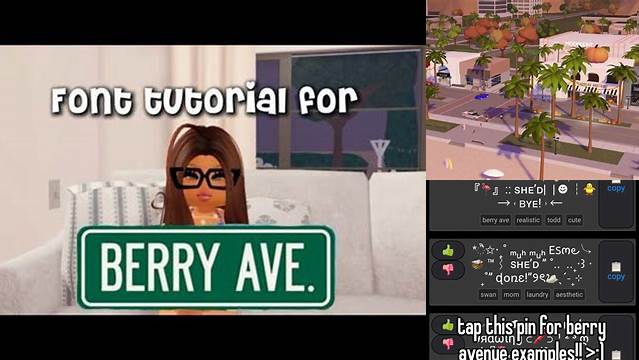
Cool Fonts On Roblox Berry Avenue: A Simple Guide
Hey guys! Ever wondered how to make your text stand out in Roblox Berry Avenue? One of the coolest ways to do that is by using different fonts. If you're looking to add a bit of flair and personality to your in-game messages, you've come to the right place. Let’s dive into how you can jazz up your text with some awesome fonts! This guide will walk you through everything you need to know to get cool fonts on Roblox Berry Avenue and make your messages pop!
1. Understanding Fonts in Roblox Berry Avenue
So, what’s the deal with fonts in Roblox Berry Avenue? Well, like many online platforms, Roblox has its own system for displaying text. The standard font is alright, but it doesn't exactly scream unique, does it? To really express yourself, you need to know how to tweak things a bit. The default font can sometimes feel a bit bland, especially when you're trying to convey a specific mood or personality. By understanding how fonts work within the game, you can start to explore the possibilities of making your messages more engaging and visually appealing. Whether you’re roleplaying, chatting with friends, or just hanging out, the right font can make a big difference. Plus, changing your font is a fun way to experiment with different styles and see what works best for you. Think of it as adding a personal touch to your digital presence in Berry Avenue. So, let’s get started on this font-tastic journey and discover how you can transform your in-game text!
2. Why Use Different Fonts?
Why bother with different fonts, you ask? Well, imagine telling a joke in a monotone voice – it just doesn’t hit the same, right? Fonts are kind of like the tone of your text. They add emotion, personality, and emphasis. A fancy font can make a message feel elegant, while a bold font can make it feel strong and assertive. If you're roleplaying, the right font can really help you get into character. For example, a spooky font might be perfect for a mysterious character, while a bubbly font could suit a cheerful one. Different fonts can also help you highlight important information in a chat or make your messages stand out from the crowd. Think about how different fonts are used in real life – in books, posters, and websites. Each font is chosen to create a specific effect. The same principle applies in Roblox Berry Avenue. Using different fonts is a simple yet effective way to enhance your communication and make your interactions more engaging. So, why stick with the default when you can express yourself in so many other ways?
3. Finding Font Options in Roblox
Okay, so where do you actually find these font options? That's a great question! Unfortunately, Roblox itself doesn’t have a built-in feature to directly change fonts within the game like you might see in a word processor. But don't worry, there are still ways around this! The key is to use external tools and websites that can help you generate text in different fonts. These tools essentially create stylized text that you can then copy and paste into Roblox. Think of it like using a translator for fonts – you type in your message, and the tool spits it out in a different style. This might sound a little complicated, but it's actually quite simple once you get the hang of it. There are many websites and apps designed for this purpose, and most of them are very user-friendly. The trick is knowing where to look and how to use these tools effectively. We'll walk you through some of the best options and show you how to use them to get the cool fonts you want. So, get ready to explore the world of font generators and unlock a whole new level of text customization in Roblox!
4. Using Online Font Generators
Online font generators are your best friends when it comes to getting fancy fonts in Roblox Berry Avenue. These websites are super easy to use. You just type in your text, and they’ll generate it in a bunch of different styles. Websites like LingoJam, CoolSymbol, and many others offer a wide variety of fonts to choose from. The process is usually as simple as typing your message into a box, browsing through the generated fonts, and then copying the one you like. Many of these sites also offer additional customization options, such as adding symbols or changing the text size. This means you can really tailor your text to fit your specific needs and preferences. When you’re browsing through the fonts, pay attention to how each one looks in the preview. Some fonts might look great in a small sample, but they might be hard to read in a longer message. It’s also a good idea to test out different fonts to see which ones work best with Roblox’s text display. Once you’ve found a font you love, just copy it and you’re ready to paste it into your Roblox chat or profile. With these tools at your fingertips, you'll be a font master in no time!
5. Copying and Pasting Fonts into Roblox
Once you've found your perfect font using an online generator, the next step is to copy and paste it into Roblox. This part is pretty straightforward, but let's go over the steps just to make sure you've got it. First, after generating your text in the font you like, there will usually be a button or an option to copy the text. Click that, and the stylized text will be copied to your clipboard. Next, head over to Roblox Berry Avenue and open up the chat box or wherever you want to use your new font. Simply paste the text using Ctrl+V (or Cmd+V on a Mac) or right-click and select “Paste.” And that’s it! Your message should now appear in the fancy font you chose. However, sometimes the fonts might not display perfectly in Roblox. This can happen because Roblox has its own way of rendering text, and some fonts might not be fully compatible. If you notice any issues, like missing characters or strange formatting, try a different font or adjust the size of your text. It might take a little experimenting to find fonts that work flawlessly, but the effort is worth it when you see your messages looking super stylish. So, go ahead and give it a try, and watch your text transform!
6. Troubleshooting Font Display Issues
Okay, so you've copied and pasted your cool new font into Roblox, but something's not quite right. Don't worry, this happens sometimes! There are a few common issues you might run into, and luckily, most of them are easy to fix. One common problem is that some characters might not display correctly. This usually happens because Roblox doesn't support every single character in every font. If you see weird symbols or empty boxes instead of letters, it means that the font you're using has characters that Roblox can't render. The solution here is simple: try a different font. Another issue you might encounter is that the font size looks different in Roblox than it did in the font generator. This is because Roblox has its own text scaling system. To fix this, you might need to adjust the size of your text in the font generator before you copy it. Experiment with different sizes until you find one that looks good in the game. Finally, sometimes the font might just look blurry or pixelated. This can happen if the font is too small or if Roblox is having trouble rendering it. In this case, try using a slightly larger font size or choosing a font with cleaner lines. Troubleshooting font display issues might take a little trial and error, but with a bit of patience, you’ll be able to find fonts that look fantastic in Roblox!
7. Best Font Styles for Berry Avenue
When it comes to choosing the best font styles for Berry Avenue, it really depends on your personal taste and what kind of vibe you're going for. But, there are definitely some styles that tend to work particularly well in the game. For a classic, clean look, try fonts that have a simple and readable design. Think of fonts that you might see in a book or a professional document. These fonts are easy on the eyes and can make your messages look polished and sophisticated. If you're looking to add a bit of flair and personality, consider using script fonts. These fonts have a handwritten or cursive style and can give your text a more elegant and stylish feel. Just be careful to choose a script font that is still easy to read, especially in smaller sizes. For a bolder, more attention-grabbing look, try using blocky or sans-serif fonts. These fonts have thick, solid letters and can make your messages stand out. They're great for emphasizing important points or for adding a bit of punch to your text. And if you're feeling creative, you can even experiment with decorative fonts that have unique shapes and designs. Just remember to use these fonts sparingly, as they can sometimes be harder to read. Ultimately, the best font style for Berry Avenue is the one that you like the most and that fits your personal style. So, have fun experimenting and find the fonts that make your messages shine!
8. Font Size Considerations
Font size is a big deal, guys! You might find a font that looks amazing in the generator, but when you paste it into Roblox, it's either tiny and unreadable or huge and overwhelming. Nobody wants that, right? So, let's talk about font size considerations. The key thing to remember is that what looks good in a font generator might not look the same in Roblox. This is because Roblox has its own way of scaling text. So, it’s important to test out different font sizes to see what works best. As a general rule, it’s better to err on the side of larger fonts rather than smaller ones. Small fonts can be difficult to read, especially in the busy environment of Berry Avenue. But, you also don’t want your text to be so large that it takes up the entire chat window or overlaps other elements on the screen. A good starting point is to use a medium-sized font in the generator and then adjust it as needed in Roblox. If the font looks too small, try increasing the size slightly in the generator and copying it again. If it looks too big, try decreasing the size. It might take a few tries to get it just right, but it’s worth the effort to ensure that your messages are both stylish and easy to read. Remember, the goal is to make your text stand out in a good way, not to make it a strain on the eyes!
9. Font Color and Effects
While we're talking about making your text stand out, let's not forget about font color and effects! These can add another layer of personalization and make your messages even more eye-catching. Unfortunately, Roblox doesn't offer a direct way to change font colors within the game itself. But, just like with fonts, there are some creative workarounds you can use. One trick is to use special characters or symbols that have different colors. For example, some emojis or Unicode characters might display in color in Roblox. You can try incorporating these into your messages to add a splash of color. Another option is to use font generators that offer color customization. Some online tools allow you to generate text in different colors, which you can then copy and paste into Roblox. This can be a great way to add some vibrancy to your messages. In addition to color, you can also experiment with different text effects, such as bolding, italics, or underlining. While Roblox doesn't have built-in formatting options, some font generators allow you to create text with these effects. You can also use special Unicode characters to achieve similar results. For example, you can use the Unicode characters for bold or italic letters to format your text in Roblox. By combining different font colors and effects, you can create truly unique and expressive messages that will grab attention and make your interactions in Berry Avenue even more fun!
10. Legal and Safe Font Usage
Now, before you go crazy with all these cool fonts, let's have a quick chat about legal and safe font usage. It’s super important to make sure you’re using fonts in a way that’s respectful and doesn’t cause any problems. The first thing to keep in mind is that some fonts are copyrighted. This means that the creator of the font has the exclusive rights to control how it’s used. If you use a copyrighted font without permission, you could be violating the law. However, most of the fonts you’ll find on online font generators are either free to use or licensed under terms that allow for personal use. So, as long as you’re using these fonts for your own messages and interactions in Roblox, you should be fine. But, it’s always a good idea to double-check the licensing terms just to be sure. Another important consideration is to use fonts responsibly. Avoid using fonts that are offensive, inappropriate, or difficult to read. Remember, the goal is to enhance your communication, not to cause confusion or upset other players. Stick to fonts that are clear, legible, and respectful of others. By following these simple guidelines, you can enjoy using cool fonts in Roblox Berry Avenue while staying safe and legal. So, go ahead and express yourself, but always do it in a responsible way!